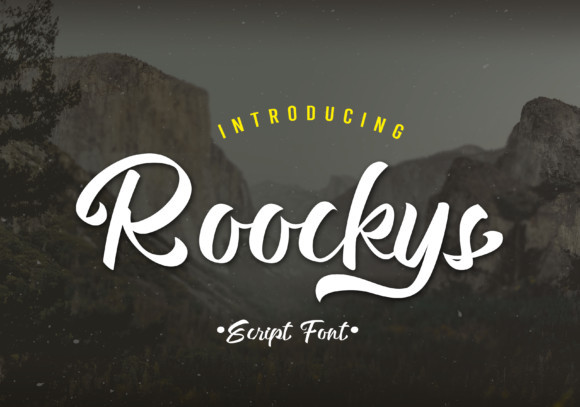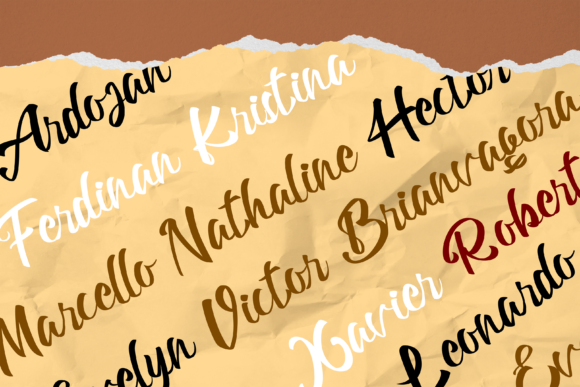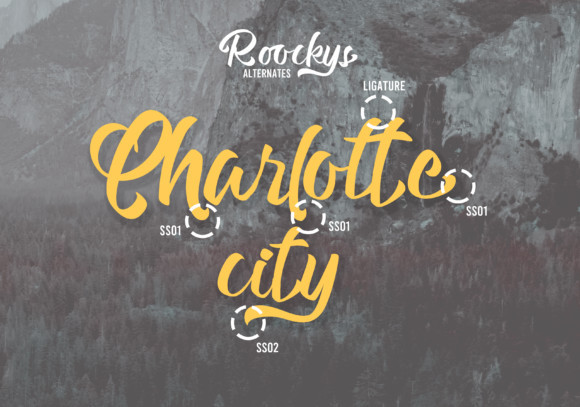
Roockys Font
Roockys is a bold and flowing handwritten font. This font is very suitable for logos, and various other formal forms such as labels, books, greeting and wedding cards, packaging, social media post, magazines, fashion, make up, stationery, labels or others. types of advertising purposes.